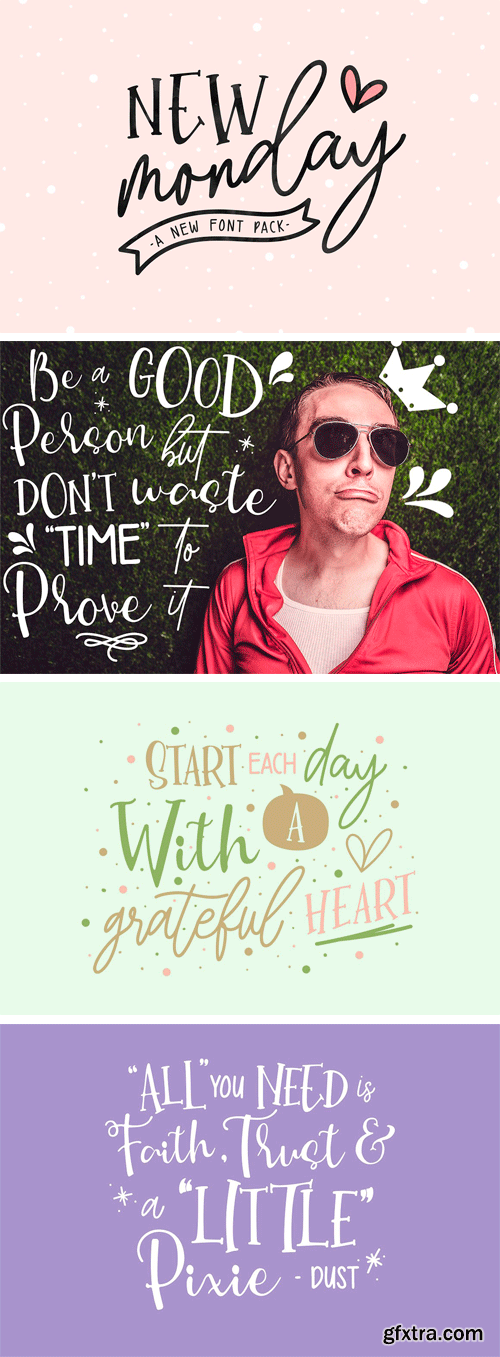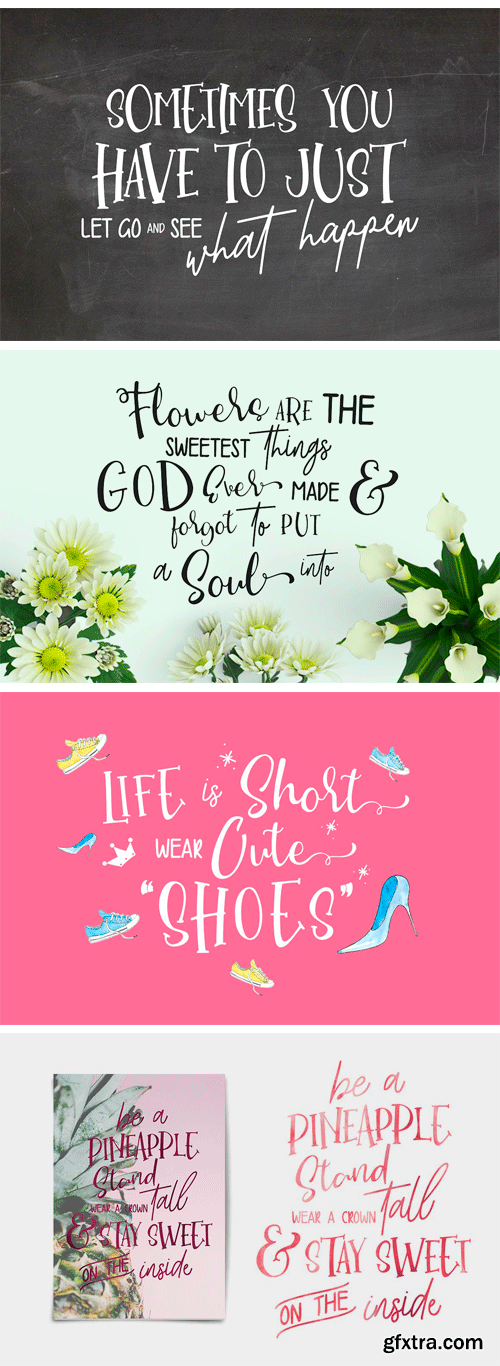
New Monday is a new handwritten font pack from us, this font is really new and fresh. With four different font characters, you can play your imagination in designing. This font is very easy to use and really playful. New Monday perfect for logos, printed quotes, invitations, cards, product packaging and another project design.